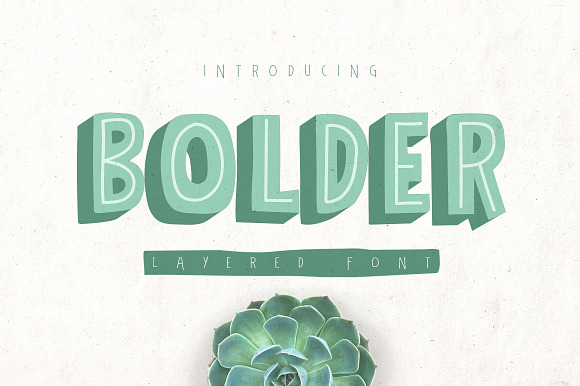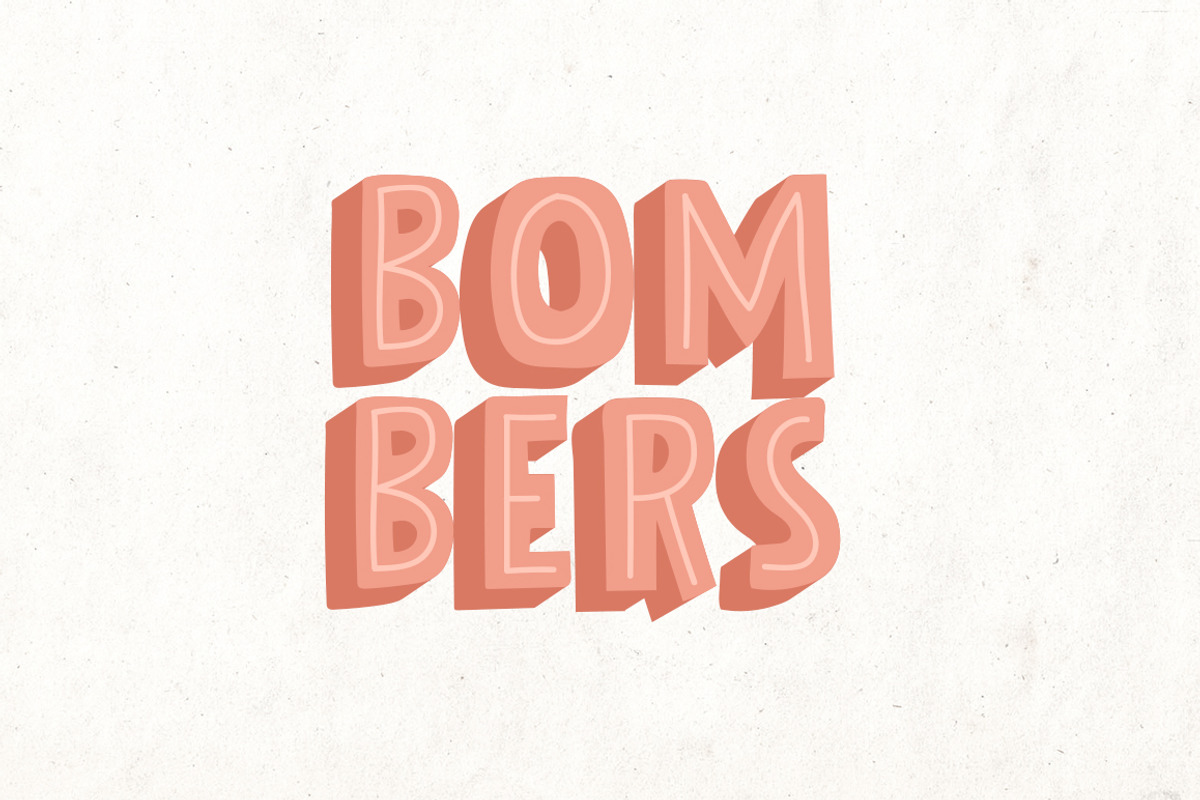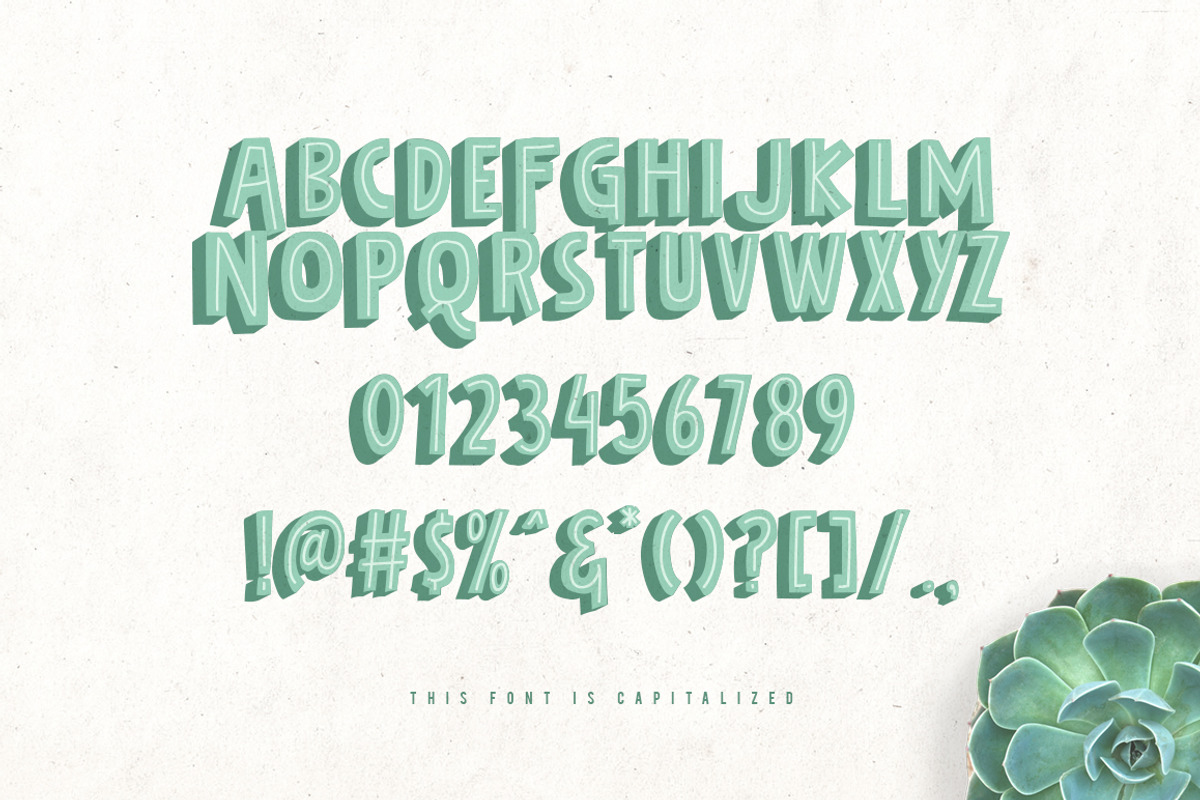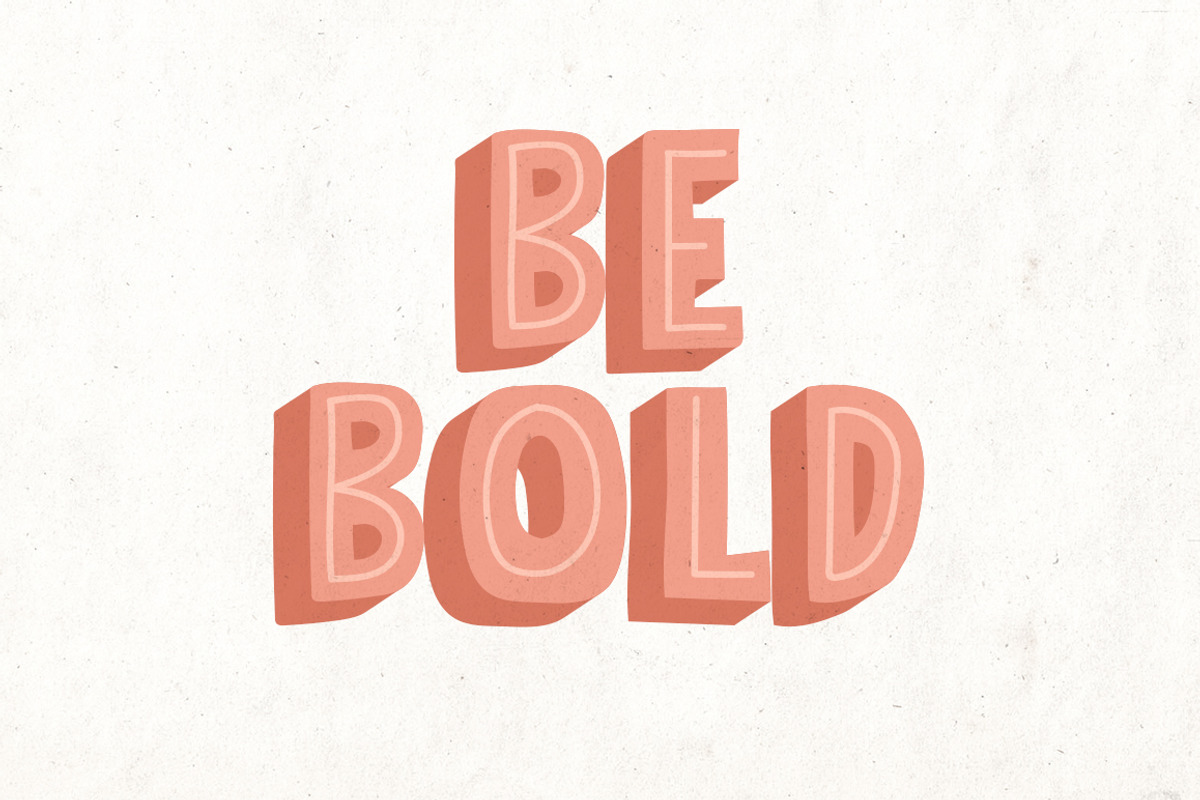
Bolder Layered Font
A New Font Layered BOLDER with shadow and light. This All character Uppercase Font. BOLDER make it super BOLD to Perfect for all Graphics.
Uppercase (all characters)
- This All character Uppercase Font.
Bolder Layered Font by Bruke.std fits naturally into Branding, posters, packaging, typography.